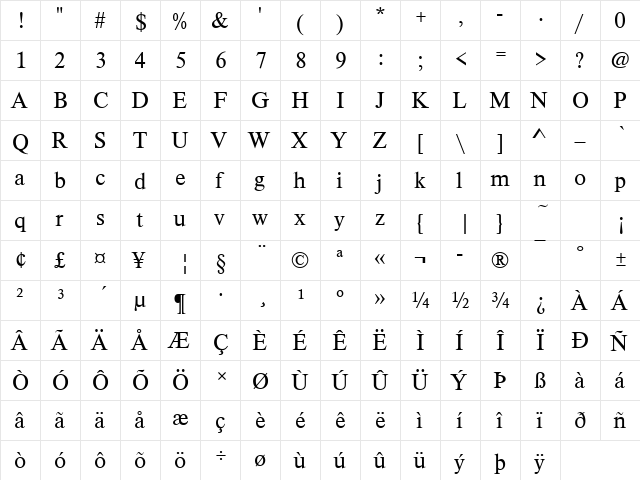
TimelessTLig Regular
Design Context for TimelessTLig Typeface
TimelessTLig is a composed and adaptable typeface that performs quietly and consistently across a wide range of design contexts.